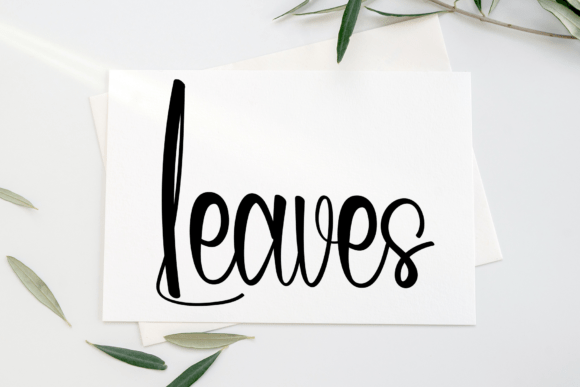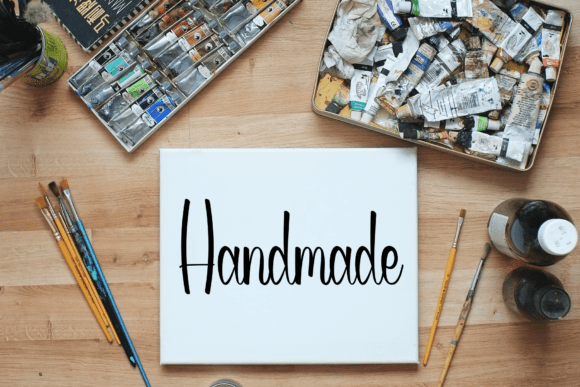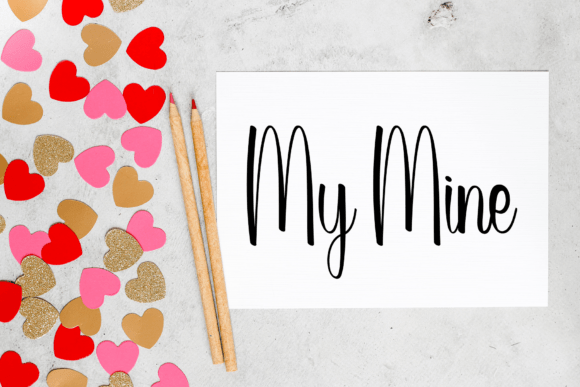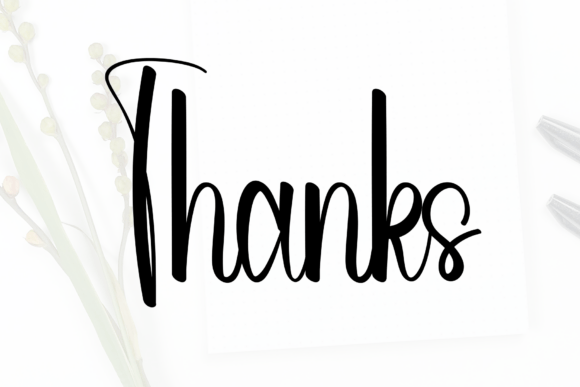
Fleurina Font: The Charming Handwritten Font for Your Design Projects
In the world of typography, a good font can make all the difference in the success of a design project. If you’re looking for a font that exudes warmth, elegance, and a touch of whimsy, look no further than Fleurina Font. This charming handwritten font is filled with a sense of heartfelt perfection, making it perfect for a variety of design projects.
The Characteristics of Fleurina Font
Fleurina Font is a beautifully crafted handwritten font that boasts smooth strokes and organic lines. Its relaxed and effortless vibe evokes a sense of calmness, making it ideal for designs that require a touch of sophistication and elegance. The font’s unique characteristics include:
- Smooth strokes: Fleurina Font features smooth, flowing strokes that give it a natural and effortless look.
- Organic lines: The font’s organic lines add a touch of whimsy and playfulness, making it perfect for designs that require a bit of personality.
- Handwritten feel: Fleurina Font has a distinctly handwritten feel, making it perfect for designs that require a personal touch.
Uses for Fleurina Font
Fleurina Font is a versatile font that can be used for a wide range of design projects. Here are some ideas to get you started:
- Branding: Use Fleurina Font to create a unique and memorable brand identity. Its elegant and sophisticated vibe makes it perfect for luxury brands, while its playful and whimsical touch makes it suitable for more creative and artistic brands.
- Invitations: Fleurina Font is perfect for creating beautiful and elegant invitations for weddings, parties, and other special occasions.
- Social Media Graphics: Use Fleurina Font to create eye-catching social media graphics that will help your brand stand out from the crowd.
- Packaging: Fleurina Font can be used to create beautiful and elegant packaging designs that will make your products stand out on store shelves.
Why Choose Fleurina Font?
So why choose Fleurina Font over other fonts? Here are just a few reasons:
- Unique and distinctive: Fleurina Font has a unique and distinctive look that will help your designs stand out from the crowd.
- Elegant and sophisticated: Fleurina Font exudes elegance and sophistication, making it perfect for designs that require a touch of luxury.
- Playful and whimsical: Fleurina Font also has a playful and whimsical touch, making it suitable for designs that require a bit of personality.
- Easy to read: Despite its elegant and sophisticated vibe, Fleurina Font is easy to read, making it perfect for designs that require a clear and concise message.
Tips for Using Fleurina Font
Here are a few tips for using Fleurina Font in your design projects:
- Use it sparingly: Fleurina Font is a beautiful font, but it can be overwhelming if used too much. Use it sparingly to create a clear hierarchy of information.
- Pair it with other fonts: Fleurina Font can be paired with other fonts to create a unique and interesting look. Try pairing it with a clean and simple sans-serif font for a striking contrast.
- Experiment with colors: Fleurina Font looks beautiful in a variety of colors. Experiment with different colors to find the one that works best for your design.
Fleurina Font is a charming handwritten font that is perfect for a variety of design projects. Its smooth strokes, organic lines, and handwritten feel make it a unique and distinctive font that will help your designs stand out from the crowd. Whether used for branding, invitations, or social media graphics, Fleurina Font is sure to add a touch of elegance and sophistication to your designs.